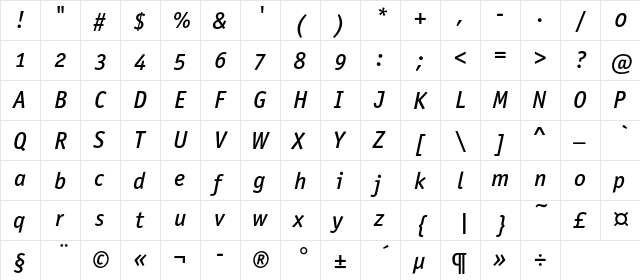
OfficinaSansMediumOSC Italic
Design Context for OfficinaSansMediumOSC Typeface
OfficinaSansMediumOSC offers clean, dependable letterforms without strong stylistic allegiance, making it a practical choice for designers who need flexibility. The slanted form adds forward momentum and visual energy.
Pro Tip: Try OfficinaSansMediumOSC for annotation and caption copy alongside an upright companion — the contrast in angle creates a dynamic but ordered typographic system.